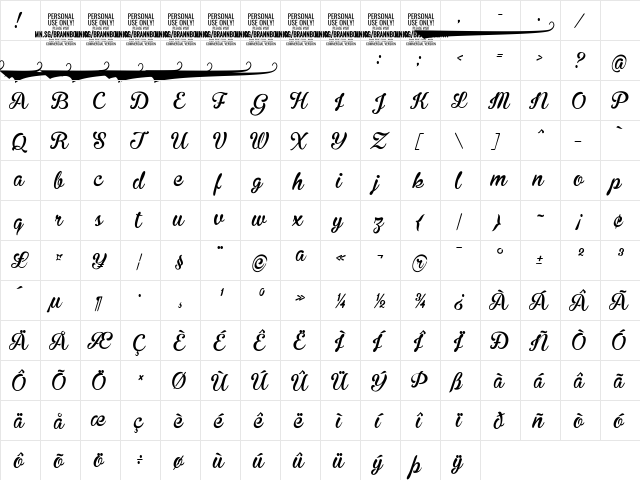
Brannboll Stencil PERSONAL USE Regular
| Foundry | Mans Greback |
| Designer | Mans Greback |
Design Context for Brannboll Stencil PERSONAL USE Typeface
Brannboll Stencil PERSONAL USE borrows the utilitarian aesthetic of stencil lettering, with its characteristic cutaways and no-frills construction lending an industrial edge.
A strong choice for packaging that needs edge, warehouse aesthetics, and rough-and-ready visual identities.
Pro Tip: Use Brannboll Stencil PERSONAL USE at large sizes on packaging, posters, or apparel where the stencil cutaways read clearly. Avoid small sizes where those gaps become visual noise.